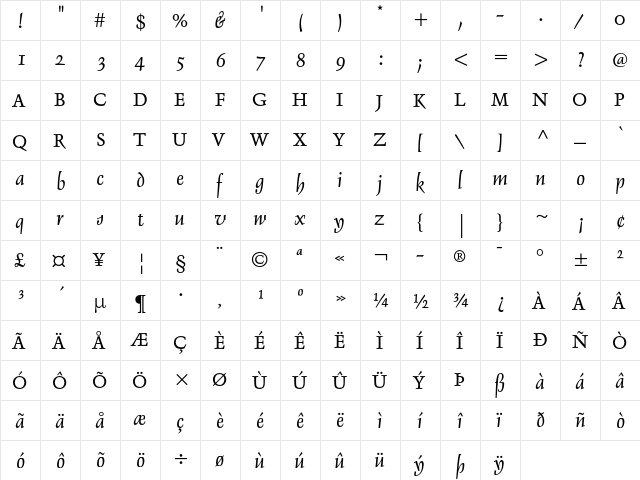
Delphin I
Design Context for Delphin Typeface
Delphin takes a measured approach to typography — its balanced proportions and neutral character make it a reliable workhorse for both digital and print work.
Pro Tip: Pair Delphin with a font of contrasting weight or personality to build a more expressive typographic hierarchy.